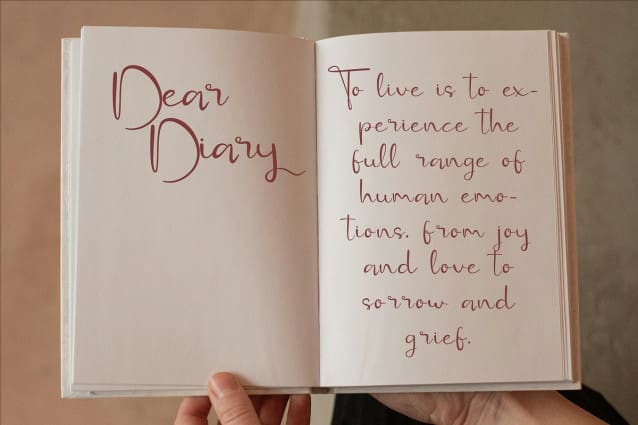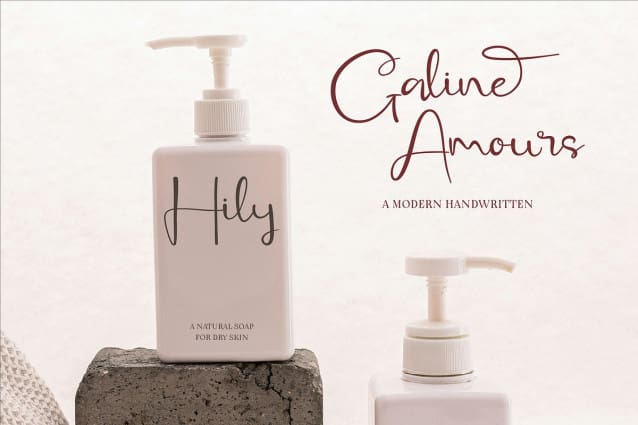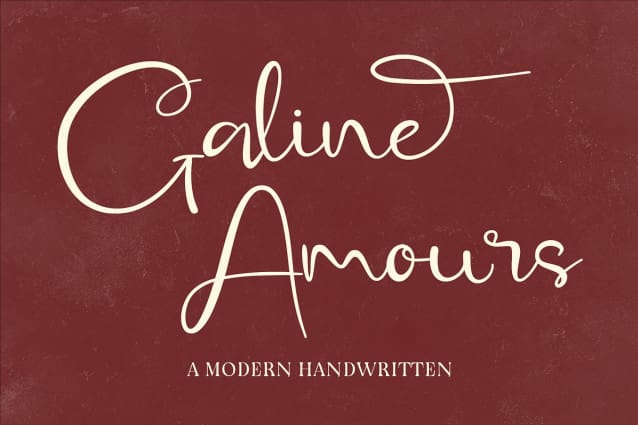
CF Galine Amours Font
CF Galine Amours Font is a modern handwritten font with a touch of romance and sophistication. Its elegant curves and smooth strokes create an enchanting aesthetic that is perfect for wedding invitations, love notes, branding, and more. This font combines the natural beauty of handwriting with a refined modern style, adding charm and warmth to your designs. Whether you’re crafting heartfelt messages or creating timeless designs, CF Galine Amours is your go-to choice for a classy, handwritten look.